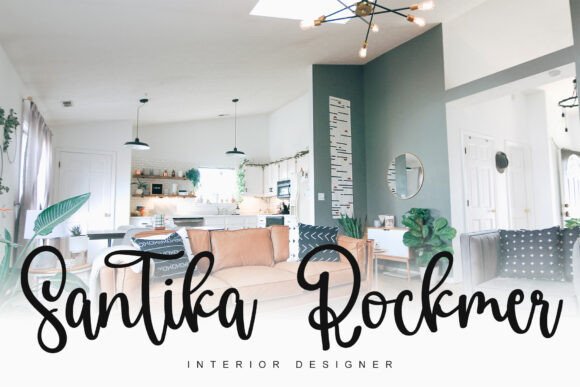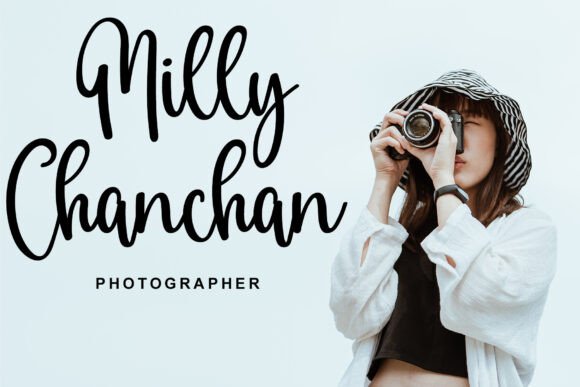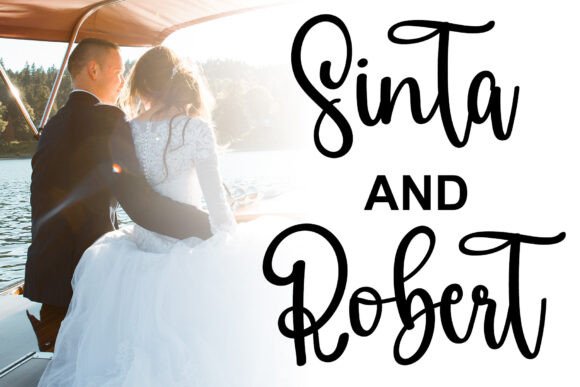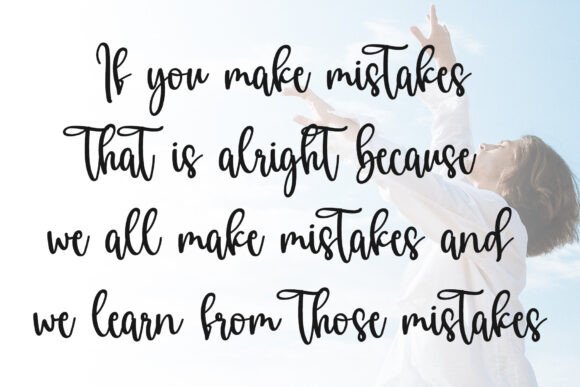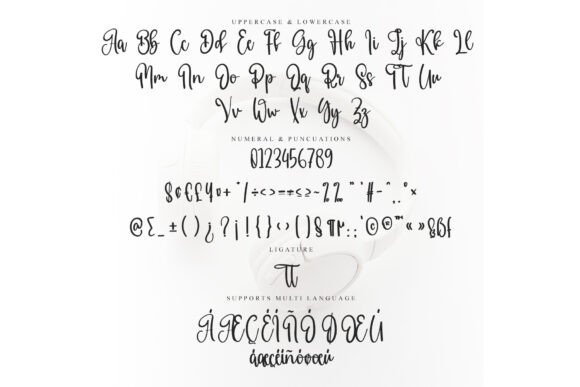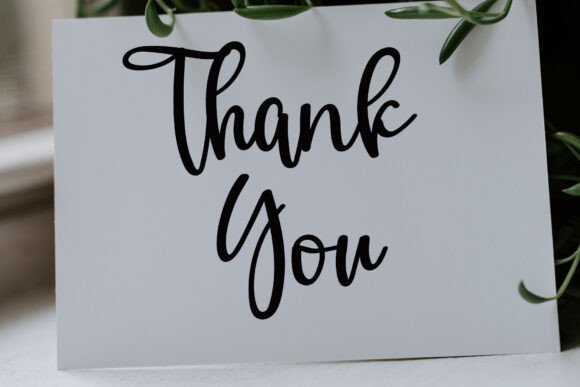
Introduction to Holland Signature Font
Holland Signature is a magical handwritten font carefully created to give a touch of elegance to your designs.
Key Features of Holland Signature Font
Why Choose Holland Signature Font?
Holland Signature Font offers exceptional quality and versatility, making it a valuable addition to your design toolkit. Whether you’re creating for personal projects or commercial use, Holland Signature Font delivers professional results.